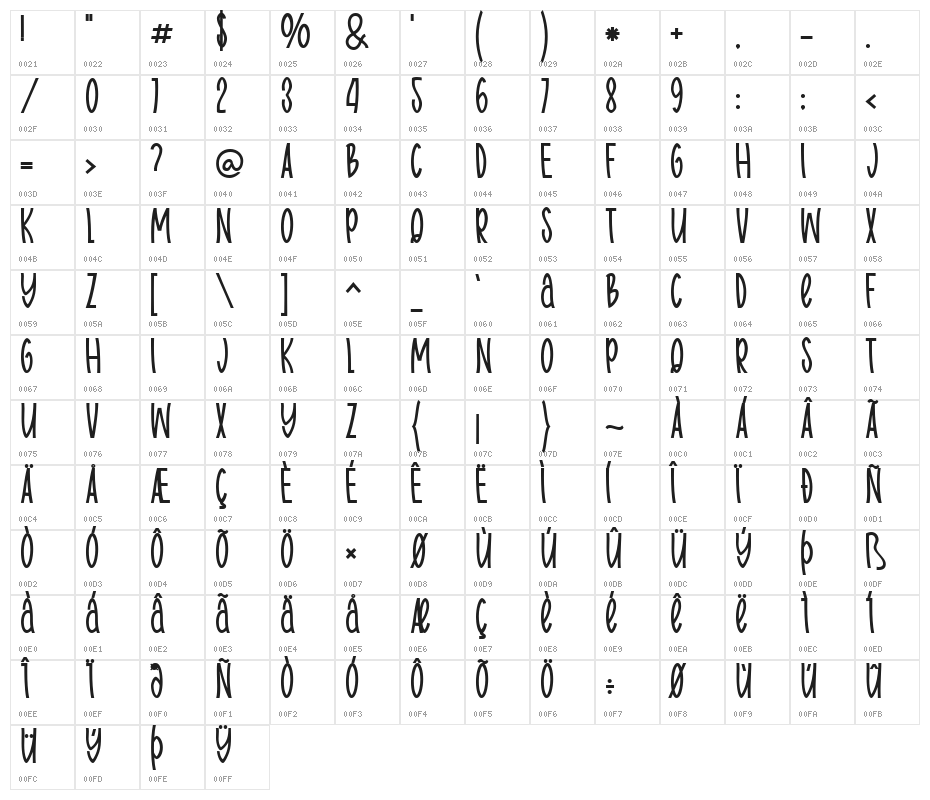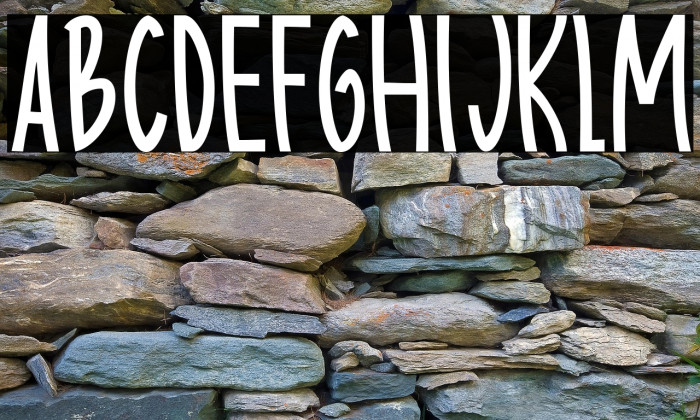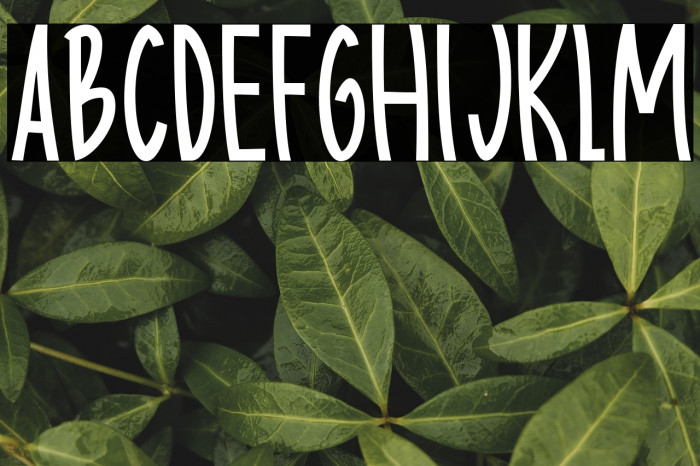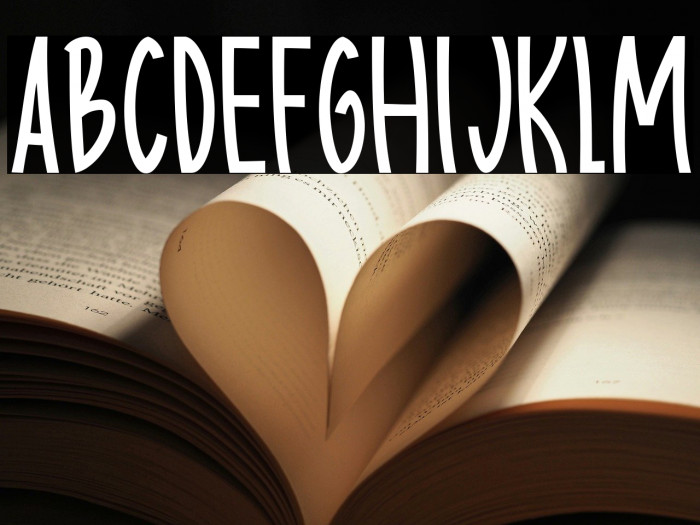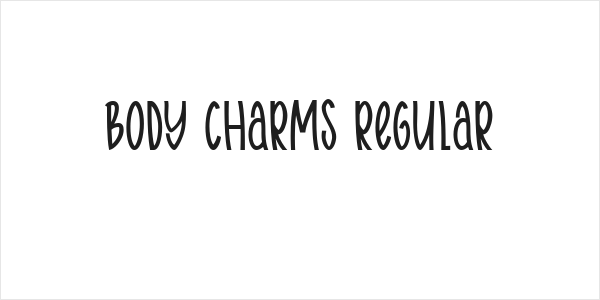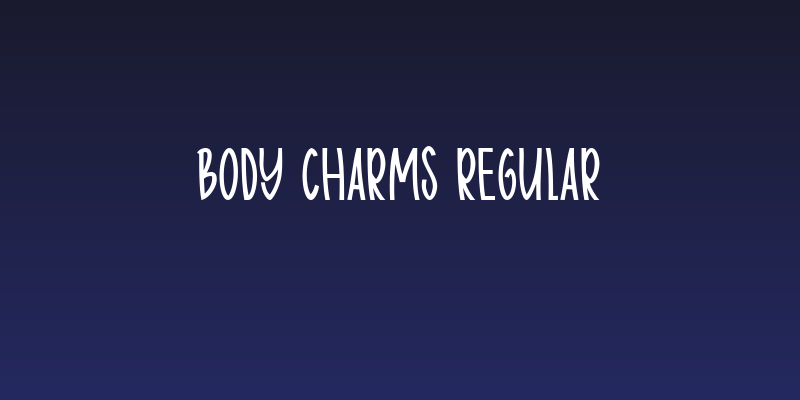
Body charms Regular Font
Body charms Regular Description
This font features a playful and whimsical style with tall, narrow characters that have a hand-drawn feel. The letters are slightly irregular, adding to the charm and uniqueness of the design. The uppercase and lowercase letters maintain a consistent height, creating a cohesive look. The numbers and special characters follow the same playful aesthetic, making the font versatile for various creative projects. The strokes are bold and consistent, providing a strong visual impact while maintaining readability. This font is perfect for projects that require a fun and informal touch.
| Proposed Projects | Ideal for children's books, greeting cards, playful branding, and creative posters. |